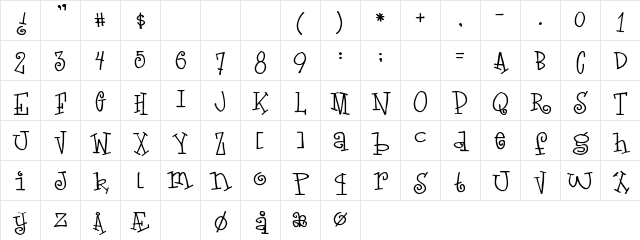
Love Letters Regular Free Font
Love Letters Regular
Love Letters Family
Design Context for Love Letters
Love Letters is a composed and adaptable typeface that performs quietly and consistently across a wide range of design contexts.
Pro Tip: Use Love Letters in both headline and body roles to test its range before committing to a single application.